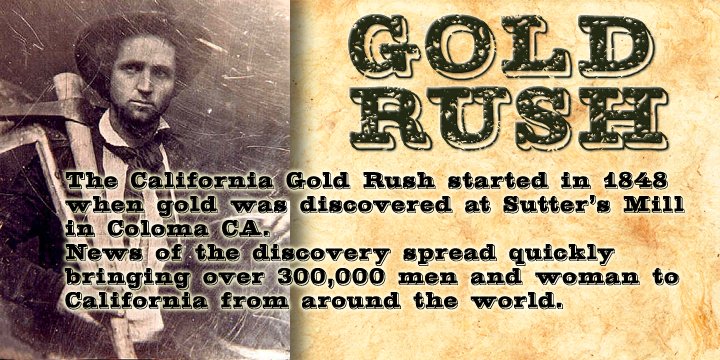
This old classic font has an interesting history, it was originally cut with lowercase by the Bruce Type Foundry in 1865 and listed as Ornamented No. 1514. Around 1903 the Bruce foundry was bought by ATF, in 1933 this font was revived by ATF as Caps only and was given the Gold Rush name but was sometimes called Klondike.
A similar version of this font with lowercase and radiused serifs was produced by the James Conner’s Sons Type Foundry around 1888. In the past other foundries such as the Carroll foundry, Type Founders of Phoenix and the Los Angeles Type Foundry have produced an all caps version of this font. More…